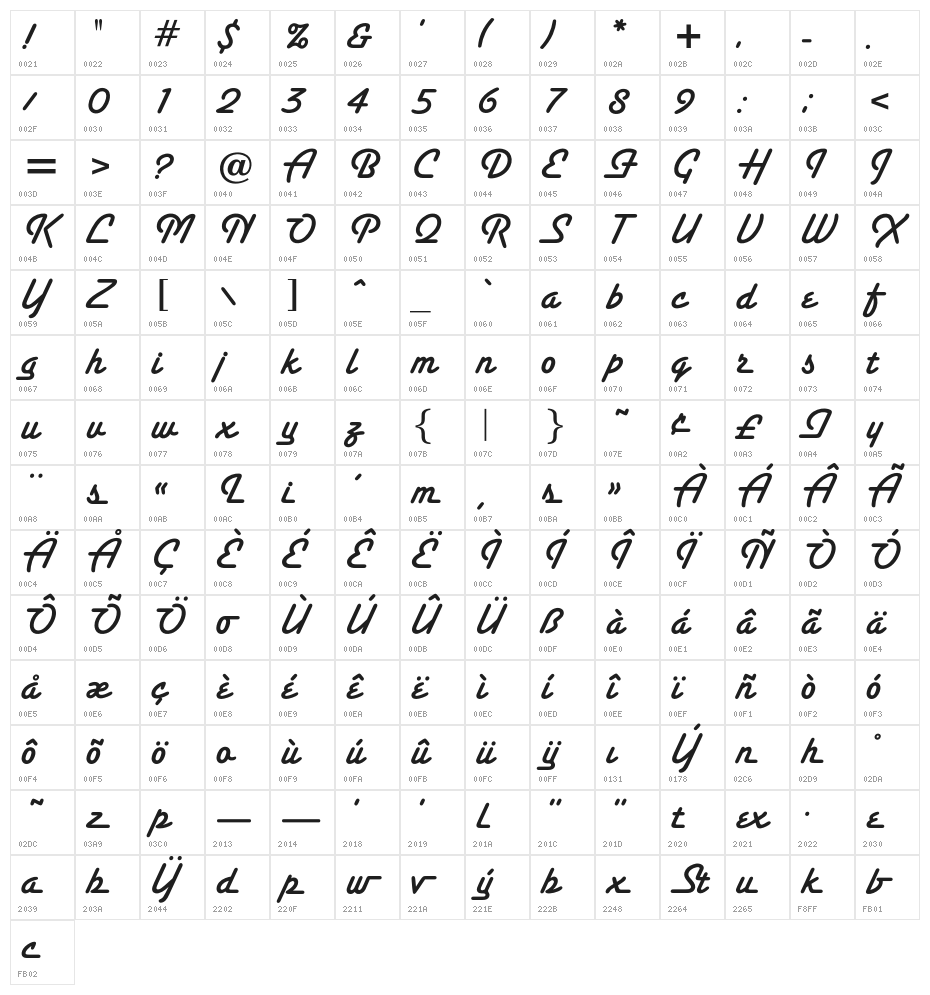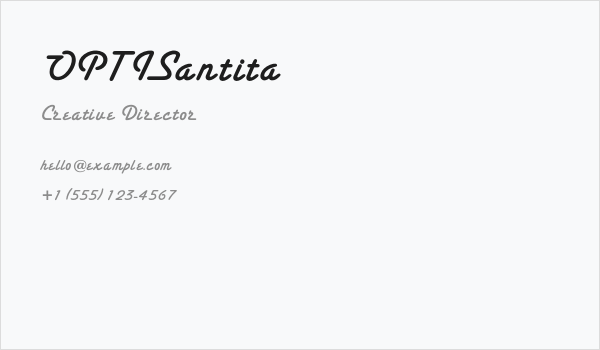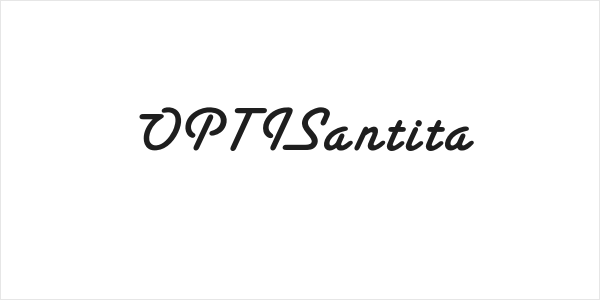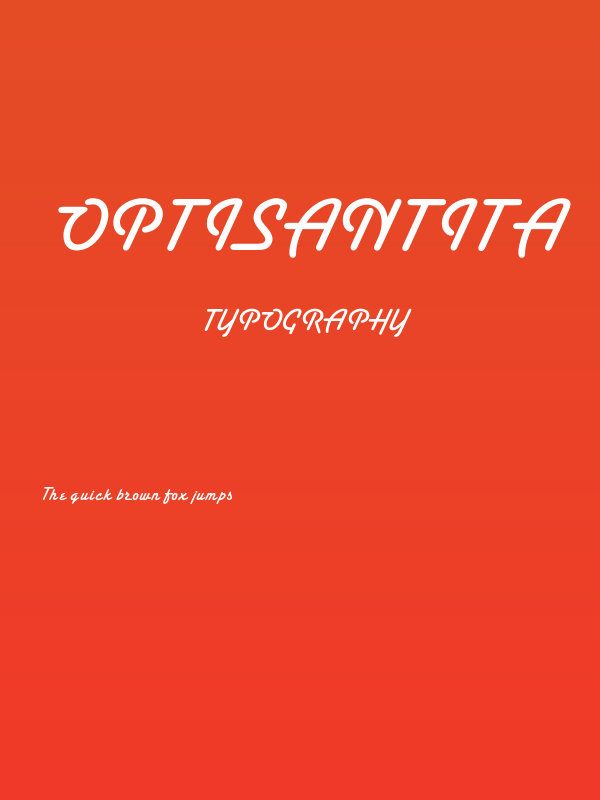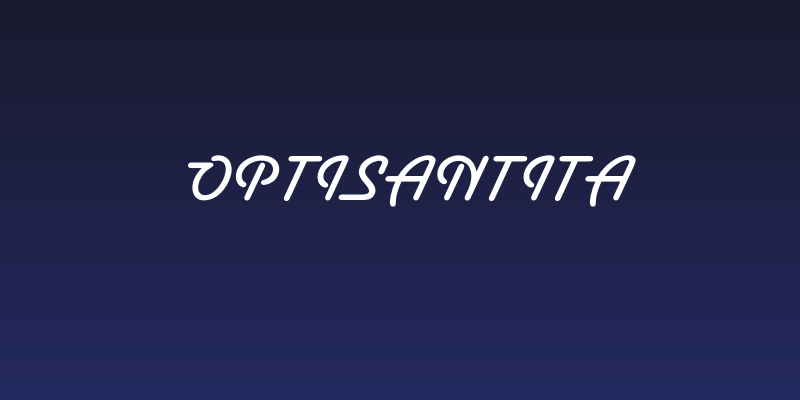
OPTISantita Font
OPTISantita Description
This font features a smooth, flowing script style that mimics the fluidity of handwriting. The characters are connected, giving it a cohesive and elegant appearance. The uppercase letters are slightly more ornate, with subtle flourishes that add a touch of sophistication. The lowercase letters maintain a consistent baseline, enhancing readability while preserving the script's natural rhythm. Numbers and special characters are designed to match the overall style, ensuring a harmonious look across all text. The font's rounded edges and consistent stroke width contribute to its friendly and approachable feel, making it suitable for a variety of applications.
Overall StyleElegant
Use CaseLogos, Invitations, Greeting Cards
Proposed ProjectsIdeal for wedding invitations, greeting cards, branding projects, and any design requiring a personal touch.